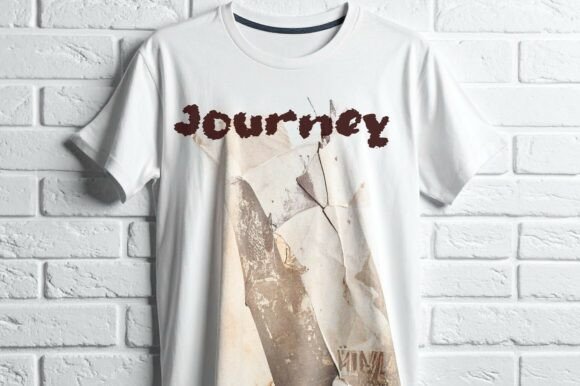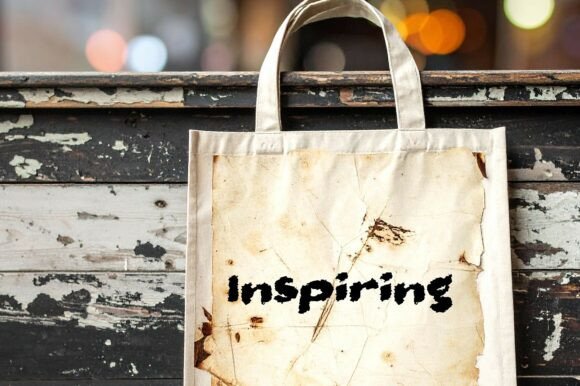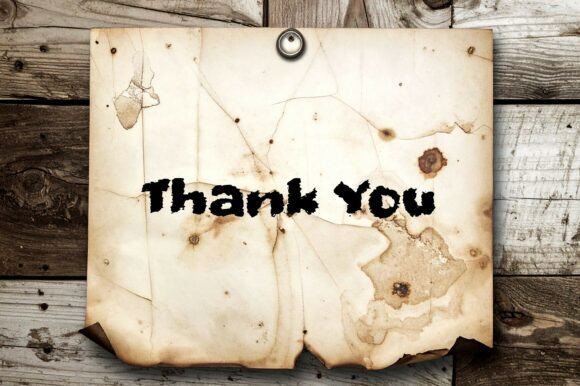
Discover the Uniqueness of Beneran Ampas Font
Have you ever been in the middle of a design project, and suddenly, it hits you – the font you’ve chosen just doesn’t cut it? The vibe is off, the message isn’t conveyed as intended, and you’re left scrambling for a solution. I recall a particular project where I was tasked with creating a vintage-inspired branding campaign for a local craft brewery. The brief required a font that exuded raw authenticity and a rustic allure. That’s when I stumbled upon the Beneran Ampas font, and it completely transformed my design.
The Charm of Beneran Ampas
The Beneran Ampas font is a significantly unique and robust display font characterized by its brushstroke-influenced texture and pleasantly irregular shapes. This results in an earthy, handcrafted charm that is perfect for projects that lean towards an edgy yet enticing aesthetic. Whether you’re working on vintage-inspired undertakings, edgy modern art, individualistic brand identities, or any artistic exertion purposed towards conveying bare, earnest messaging, Beneran Ampas is an excellent choice.
• ✨ Unique and robust display font
• ✅ Brushstroke-influenced texture adds an earthy feel
• ✅ Pleasantly irregular shapes for a handcrafted charm
• ✅ Perfect for vintage-inspired, edgy modern art, and individualistic brand identities
While Beneran Ampas is an excellent font, there are a few things to consider:
• ⚠️ Limited use in body text due to its display font nature
• 🤔 May require adjustments for optimal use in certain design platforms
The Beneran Ampas font was inspired by the rustic and earthy landscapes of rural Indonesia. The designer, who wished to remain anonymous, drew inspiration from the natural world and the imperfections of handmade crafts. The result is a font that exudes a sense of raw authenticity and charm.
What is the best use for Beneran Ampas font? Beneran Ampas is best used for display purposes, such as headlines, titles, and branding elements.
Can I use Beneran Ampas for body text? While possible, Beneran Ampas is not recommended for body text due to its display font nature and potential readability issues.
Is Beneran Ampas suitable for digital use? Yes, Beneran Ampas can be used digitally, but it may require adjustments for optimal use on different platforms and devices.